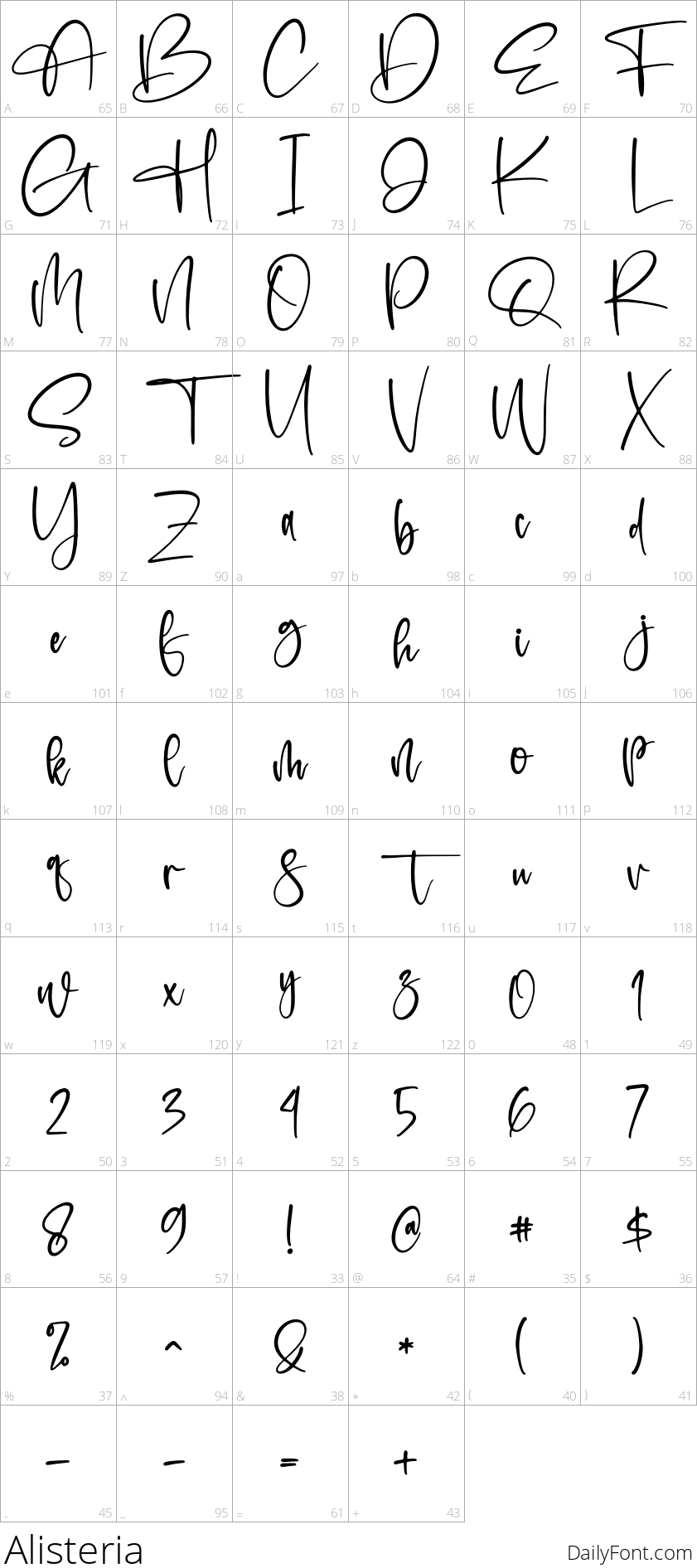
Alisteria
Alisteria is an exquisite calligraphy typeface that effortlessly captivates the eye with its gracefully dancing characters, elegantly tracing the baseline with a symphony of strokes. This font, a veritable masterpiece of design, has the remarkable ability to infuse a touch of opulent sophistication into any creative project it graces.
The very essence of Alisteria lies in its ability to evoke a sense of luxury and refinement. Each meticulously crafted letter carries an air of timeless elegance, making it an ideal choice for a wide range of design applications. Whether you're working on a wedding invitation, a high-end branding project, or an artistic masterpiece, Alisteria is your trusted companion to elevate your creative vision.